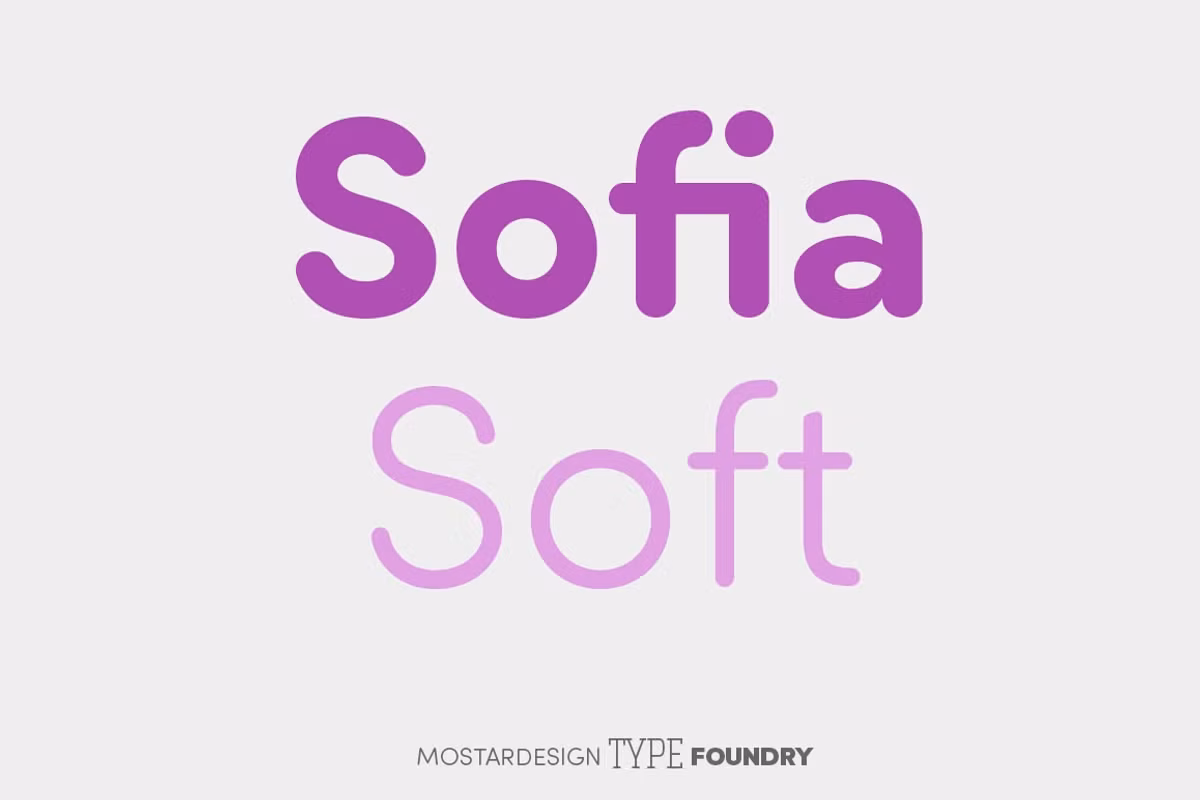
Sofia Soft Font Family (8 Fonts) Free Download is a versatile and modern typeface family, offering 8 different fonts designed for a wide range of creative projects. With its clean, rounded letterforms and excellent legibility, Sofia Soft is perfect for branding, logos, websites, and more. The complete family provides flexibility for both display and text-based designs, making it ideal for both digital and print applications.